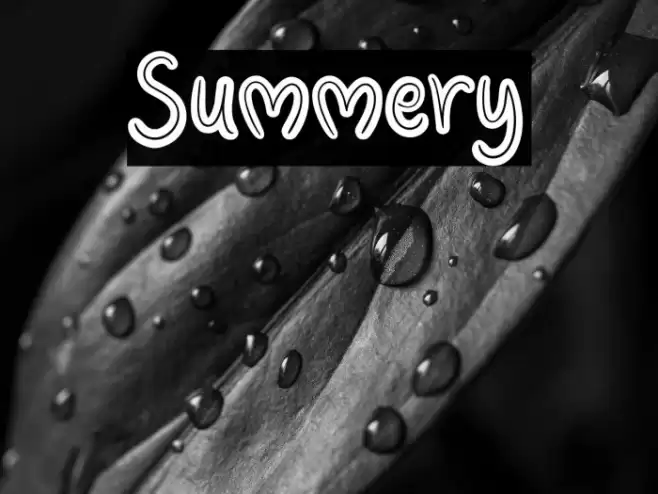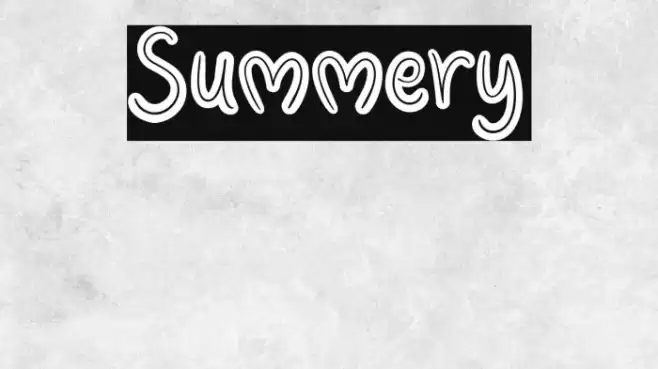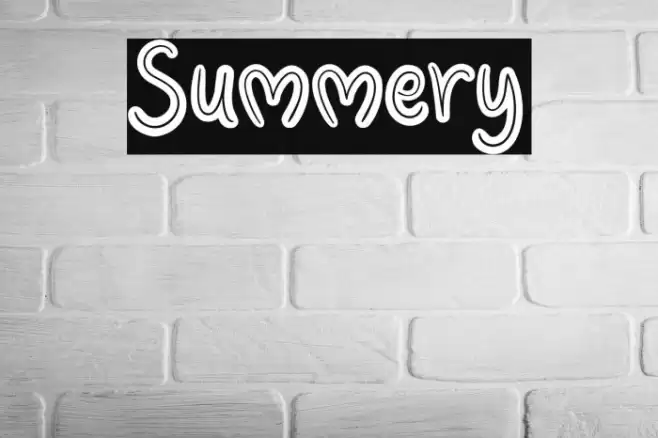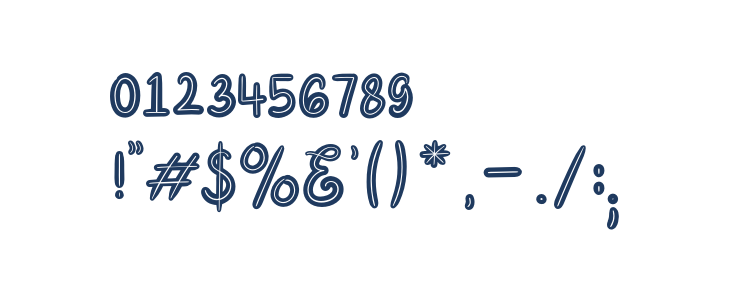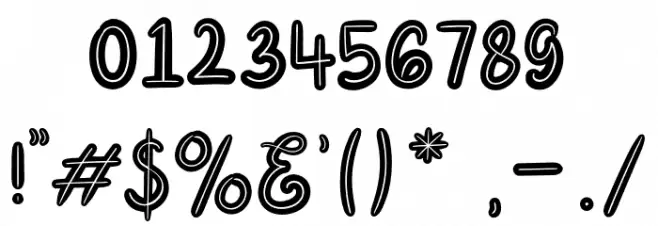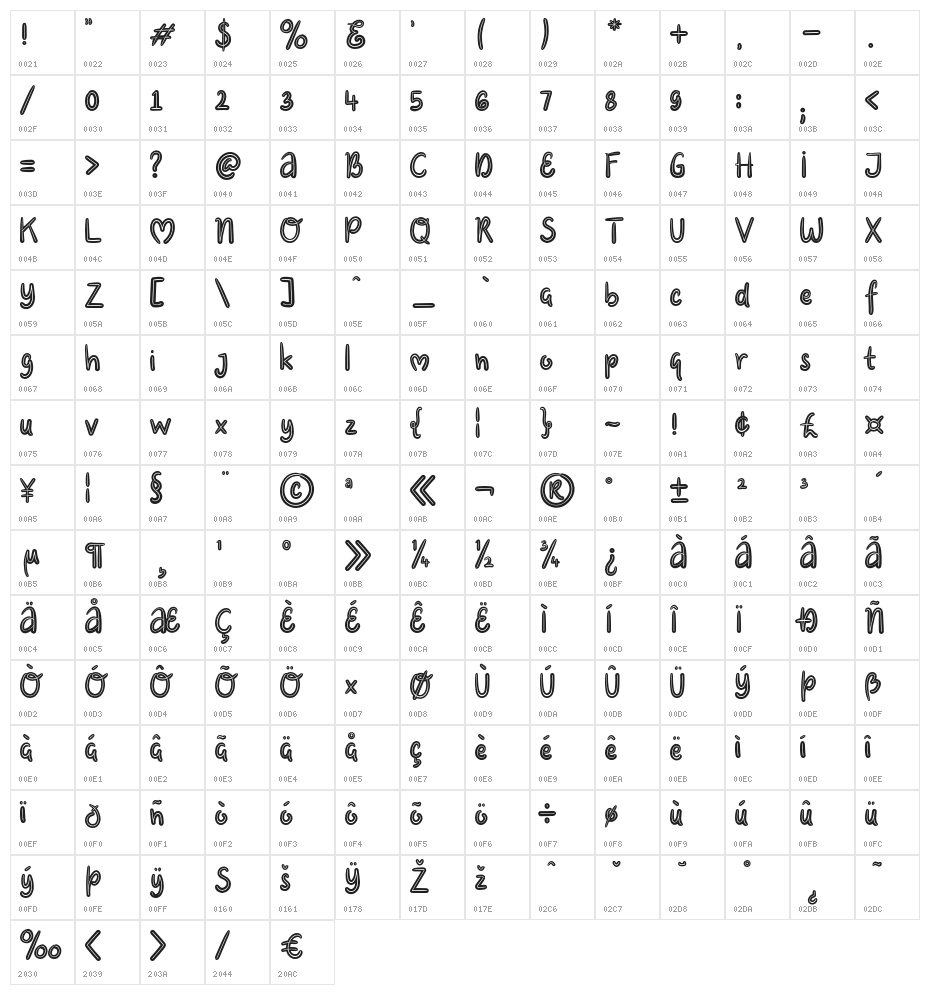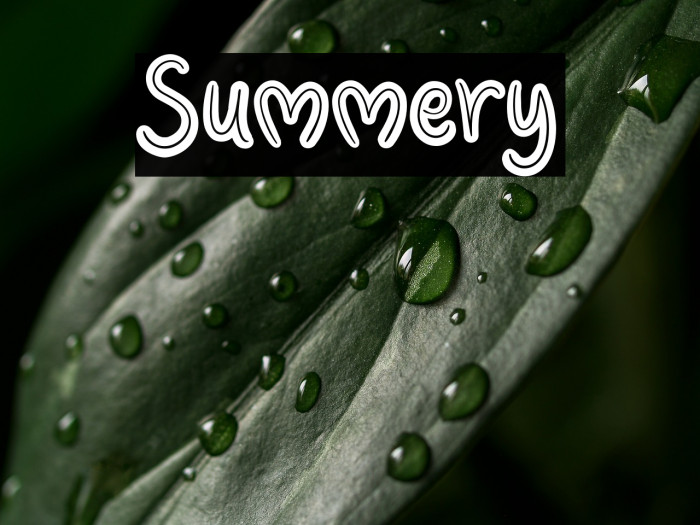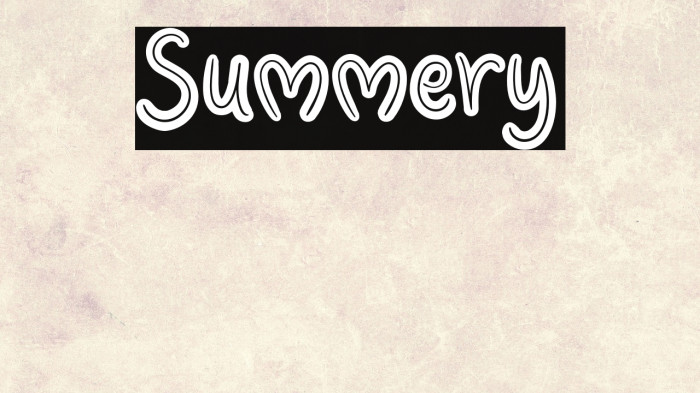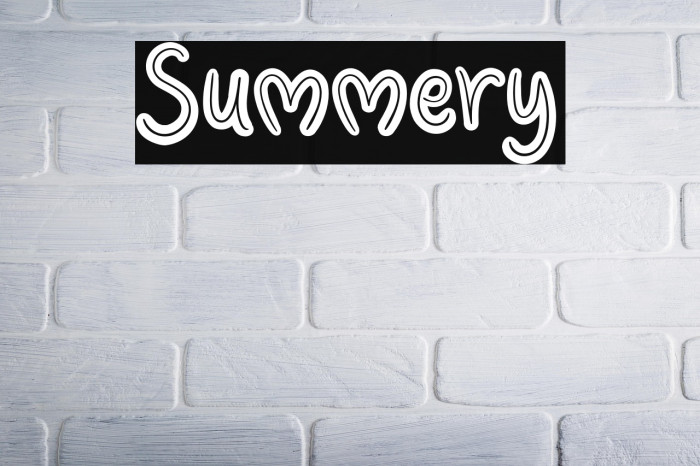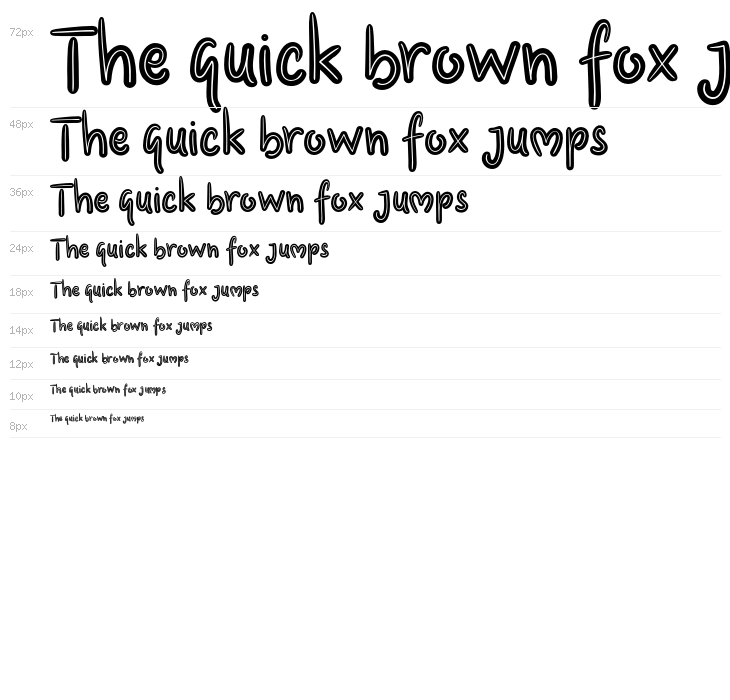
Summery Font
Summery Description
This playful and whimsical font features bold, rounded characters with a hand-drawn aesthetic. The letters are outlined, giving them a distinctive, cartoon-like appearance. The uppercase and lowercase letters maintain a consistent style, with a slightly irregular shape that adds to the charm. The numbers and special characters follow the same design, ensuring a cohesive look across all elements. This font is perfect for projects that require a fun and informal touch, such as children's books, party invitations, or playful branding.
A playful, hand-drawn font with bold, rounded outlines and a whimsical style from Uncategorized fonts.
- Proposed Projects: Ideal for children's books, party invitations, playful branding, and creative posters.
- Overall Style: Whimsical, Playful